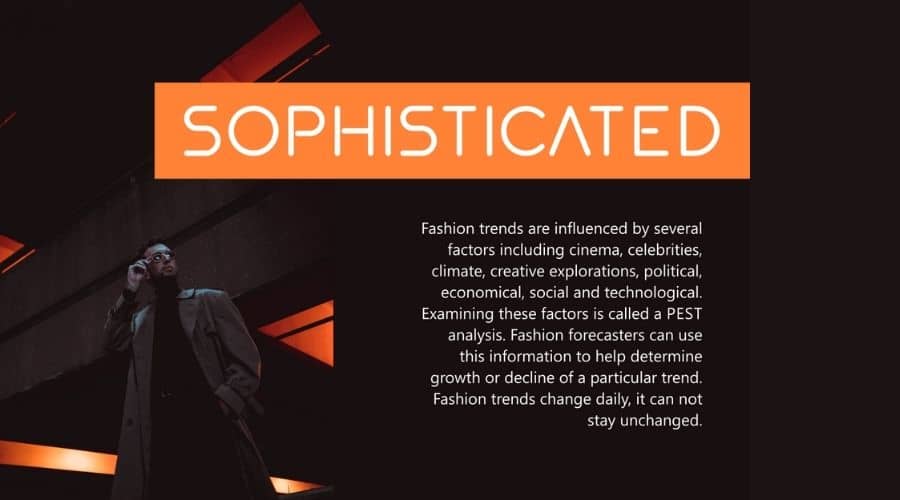
Spotnik Ultra Modern Space Font
The Font Spotnik Ultra Modern Space is a lovely sans serif font. Spotnik is a thin-lined geometric font with an open connection style that reflects modern technologies and the future. Boost the quality of your designer existence. You may develop professional designs using this gorgeous typeface. Swash variants have been added to the typeface to spice up the flavor, which exudes passion and confidence! Beautiful is the perfect typeface for your playful projects. For personal use, this Font is available for free. The Font is classified as basic and sans serif. The Font is designed and published by alexacrib on April 13, 2020.
Spotnik is ideal for high-end headlines, space, and digital projects. As a nice text overlay to any background image, branding initiatives, homeware designs, product packaging, magazine headings – or just as a fashionable text overlay to any backdrop image. The Font is ideal for use in high-end news headlines, space, and digital projects. The Font is ideal for use in high-end news headlines, space, and digital projects.
| Name | Spotnik Ultra Modern Space Font |
| Style | Sans Serif |
| Designer | alexacrib |